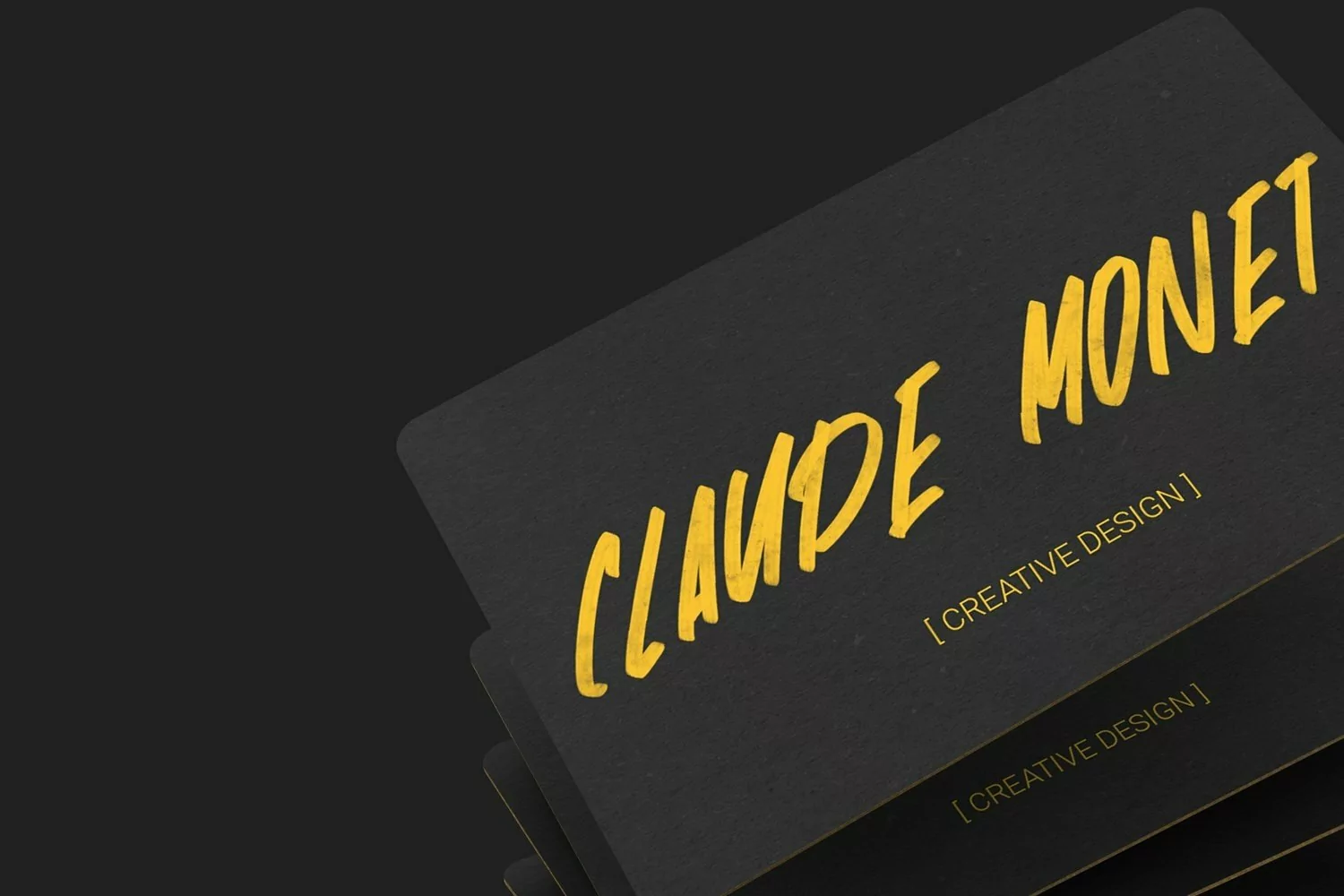
BlondeTribute - SVG Fonts that contain lowercase, uppercase, symbol, and also support multi language. There’s a lot ligatures in this font. This Font also comes with ligatures, alternates and many more. this font suitable for fashion, branding, catalog and other design what you want.